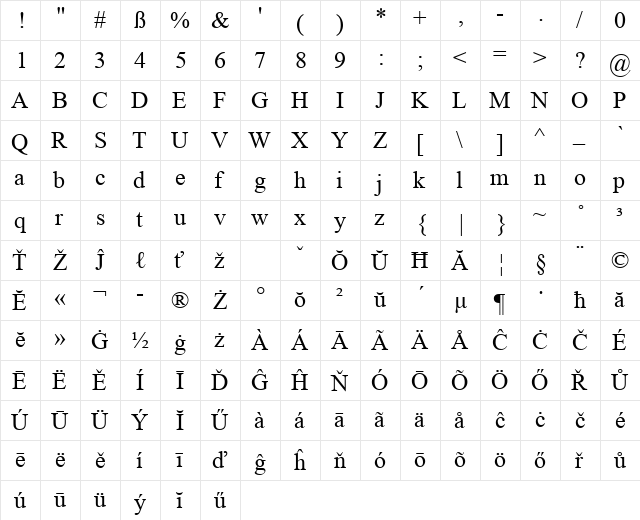
Liborsoft Latin H Regular
Design Context for Liborsoft Latin H Typeface
Liborsoft Latin H takes a measured approach to typography — its balanced proportions and neutral character make it a reliable workhorse for both digital and print work.